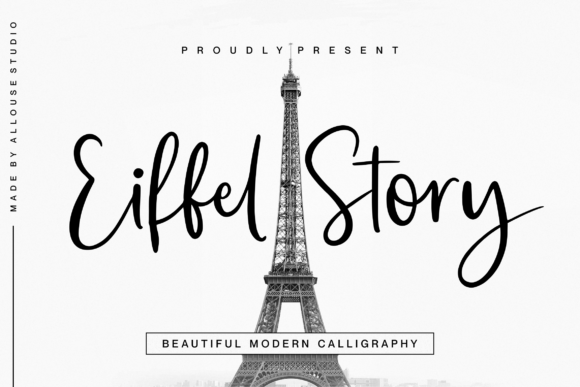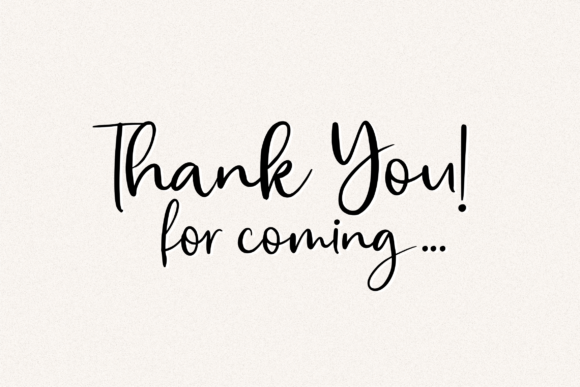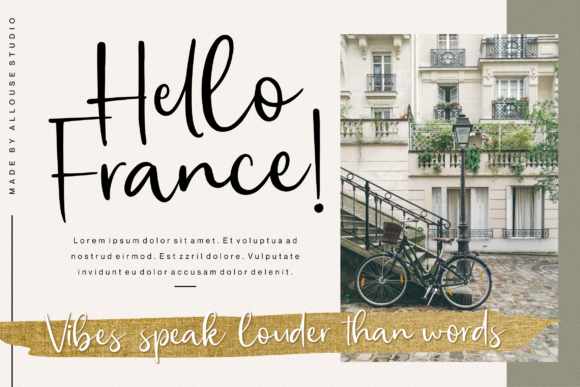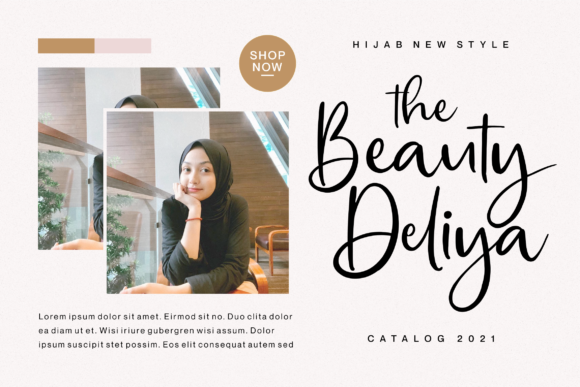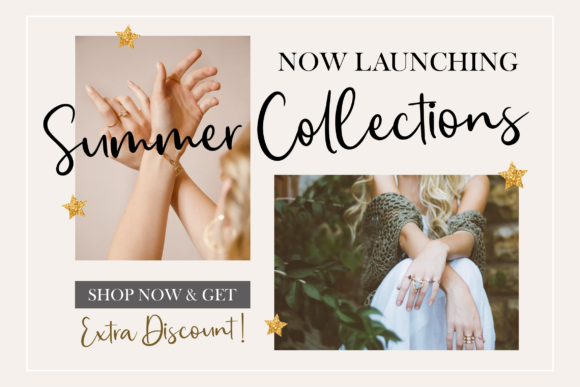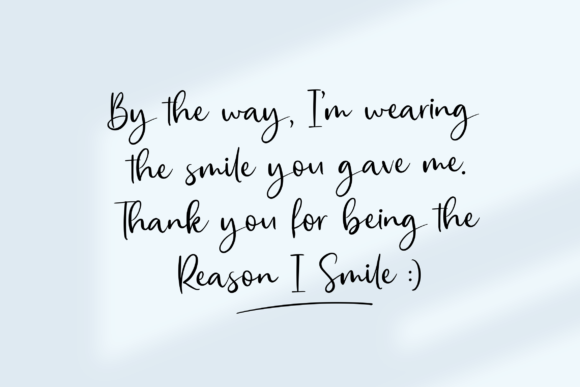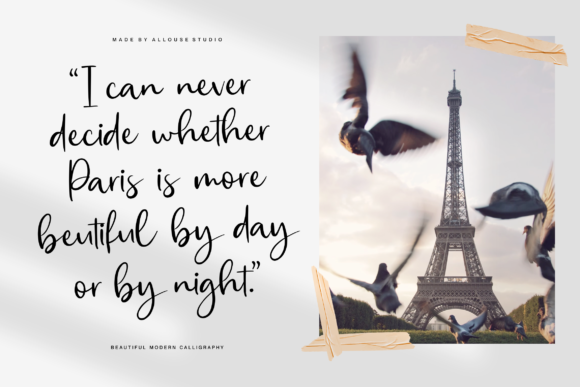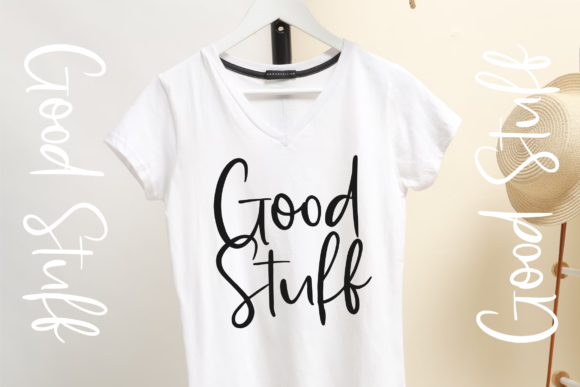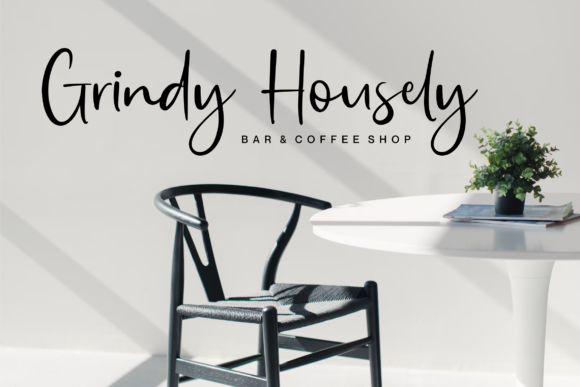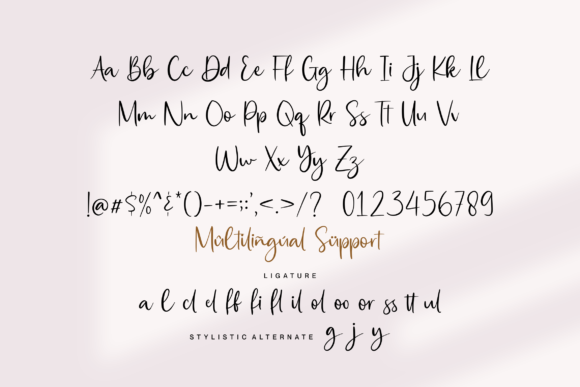
Eiffel Story Font
About Eiffel Story Font
Eiffel Story is a lovely script font featuring charming, playful characters that seem to dance along the baseline. Add this font to your most creative ideas, and notice how it makes them stand out!